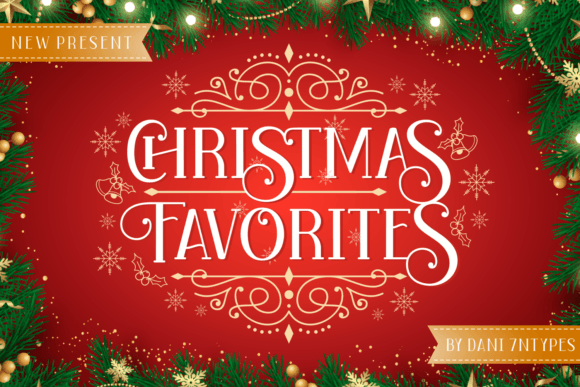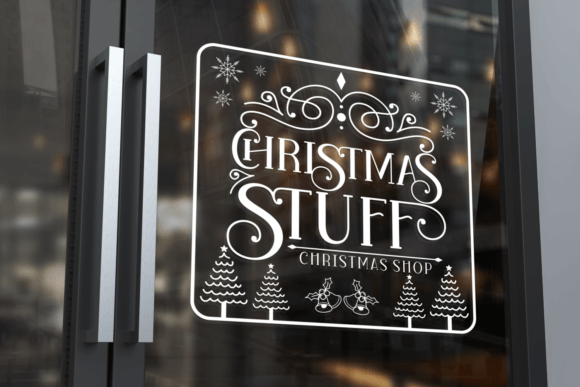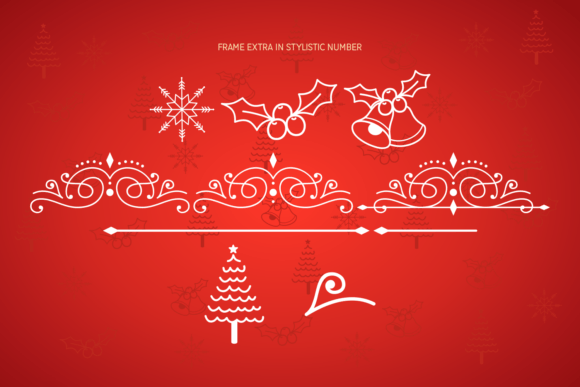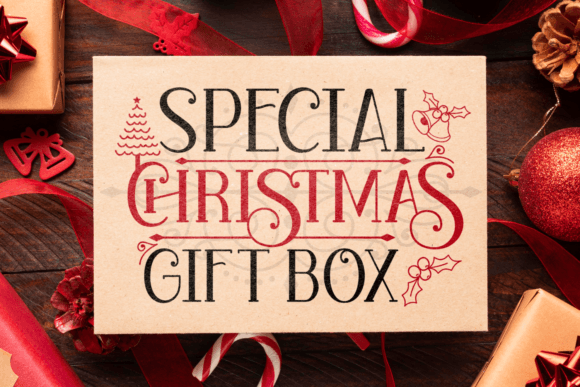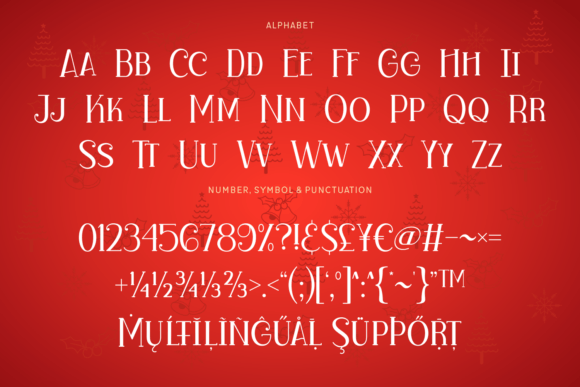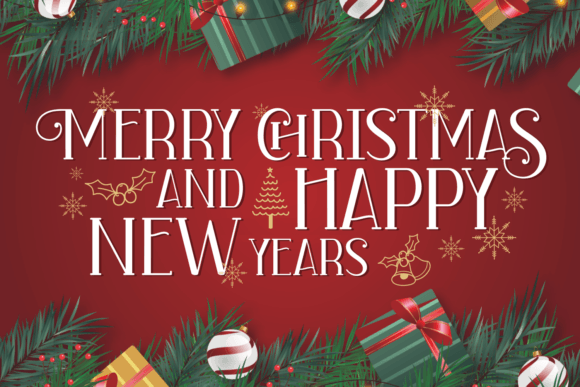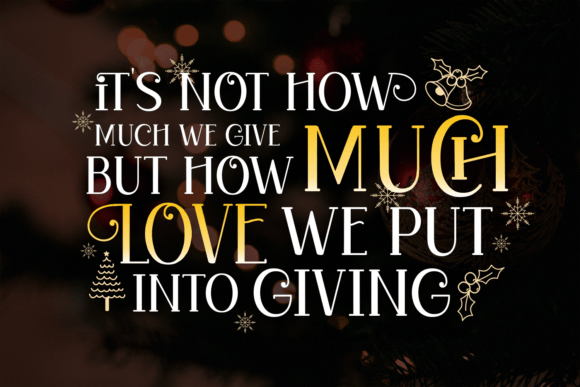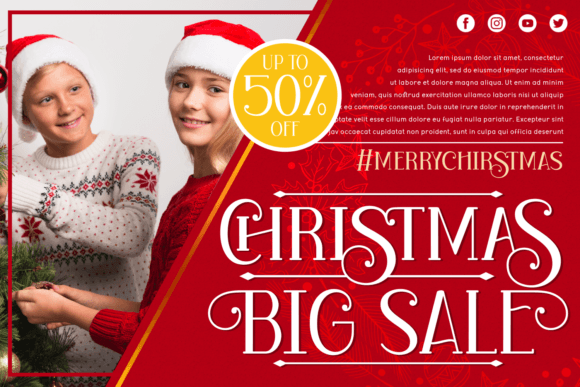
Christmas Favorites Font
Christmas Favorites is a joyful and festive display font. It matches each of your holiday creations so add this font to your designs and make them come alive!